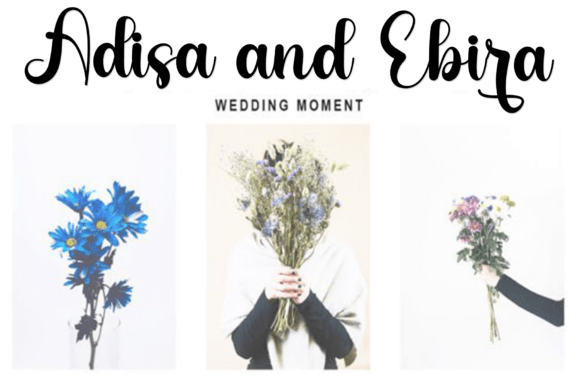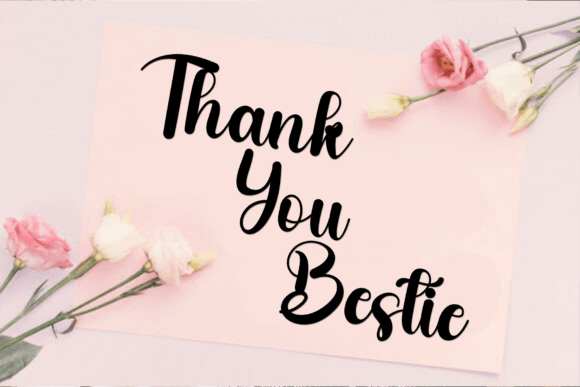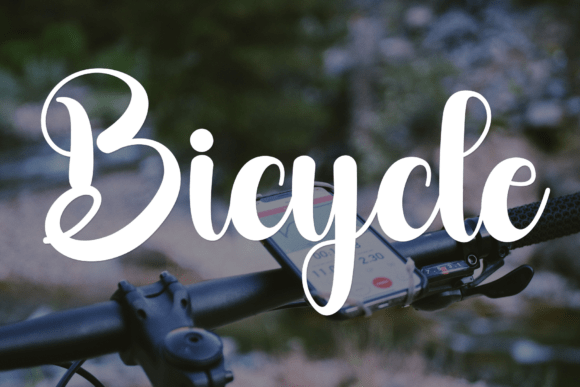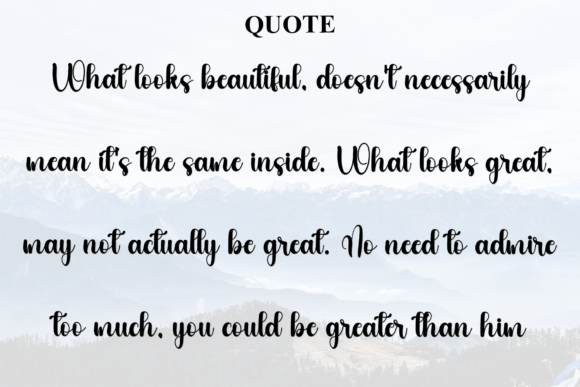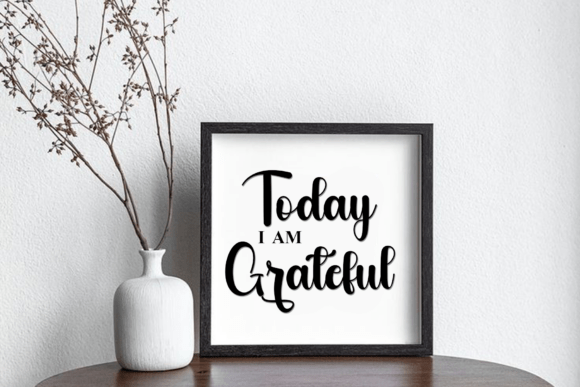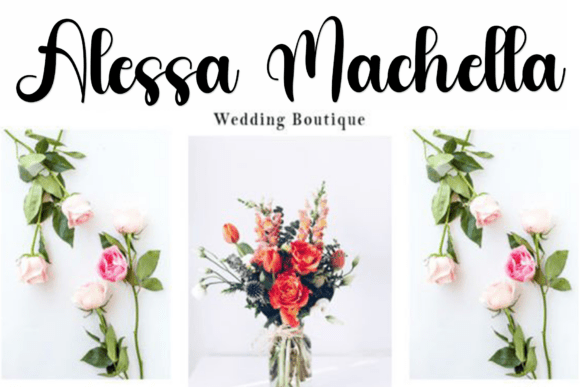
Introducing Baseball Players Font: A Festive and Merry Typeface for the Holiday Season
As the holiday season approaches, designers and crafters are on the lookout for typography that captures the spirit of the season. If you’re looking for a font that embodies the festive and merry atmosphere of the holidays, look no further than Baseball Players Font. This decorative typeface is perfect for adding a touch of enchantment to your designs, and its whimsical flair is sure to bring a cheerful and nostalgic ambiance to your words.
Baseball Players Font is a beautifully crafted typeface that is specifically designed to evoke the magic of the holiday season. Its decorative elements and whimsical flair make it perfect for a variety of design projects, from greeting cards and gift tags to holiday-themed projects and more. Whether you’re a designer, crafter, or DIY enthusiast, this font is sure to become a staple in your design toolkit.
Baseball Players Font is ideal for a wide range of holiday-themed projects, including:
- Greeting cards: Create beautiful and festive greeting cards that are sure to delight your friends and family.
- Gift tags: Add a personal touch to your gifts with custom gift tags that feature the Baseball Players Font.
- Holiday-themed projects: From Christmas decorations to Hanukkah cards, this font is perfect for any holiday-themed project.
- Create beautiful ligatures and swashes.
Why Choose Baseball Players Font?
So why choose Baseball Players Font for your holiday design projects? Here are just a few reasons:
- Unique and festive design: This font is unlike anything you’ve seen before, with its decorative elements and whimsical flair.
- Versatile: This font is perfect for a wide range of design projects, from greeting cards to holiday-themed projects.
Tips for Using Baseball Players Font
Here are a few tips for getting the most out of Baseball Players Font:
- Use the font in combination with other design elements, such as graphics and images, to create visually appealing compositions.
- Don’t be afraid to get creative and try new things – the whimsical nature of this font is perfect for experimentation.